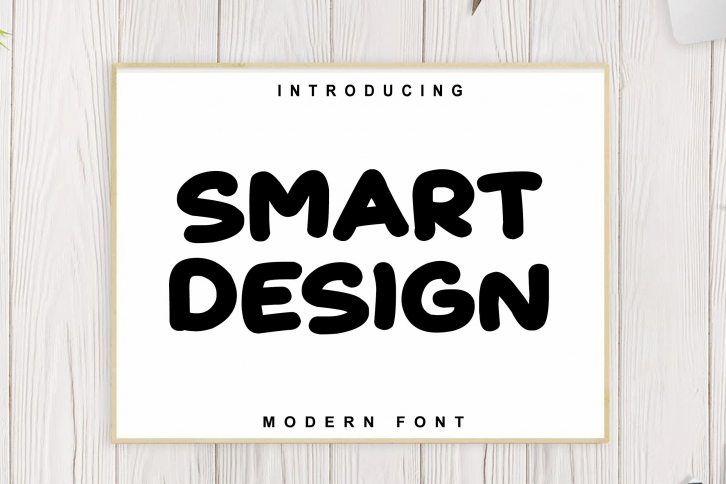
Smart Design is a cool, simple and friendly display font. It embodies playfulness and authenticity and is the perfect choice for any children activity or school project.